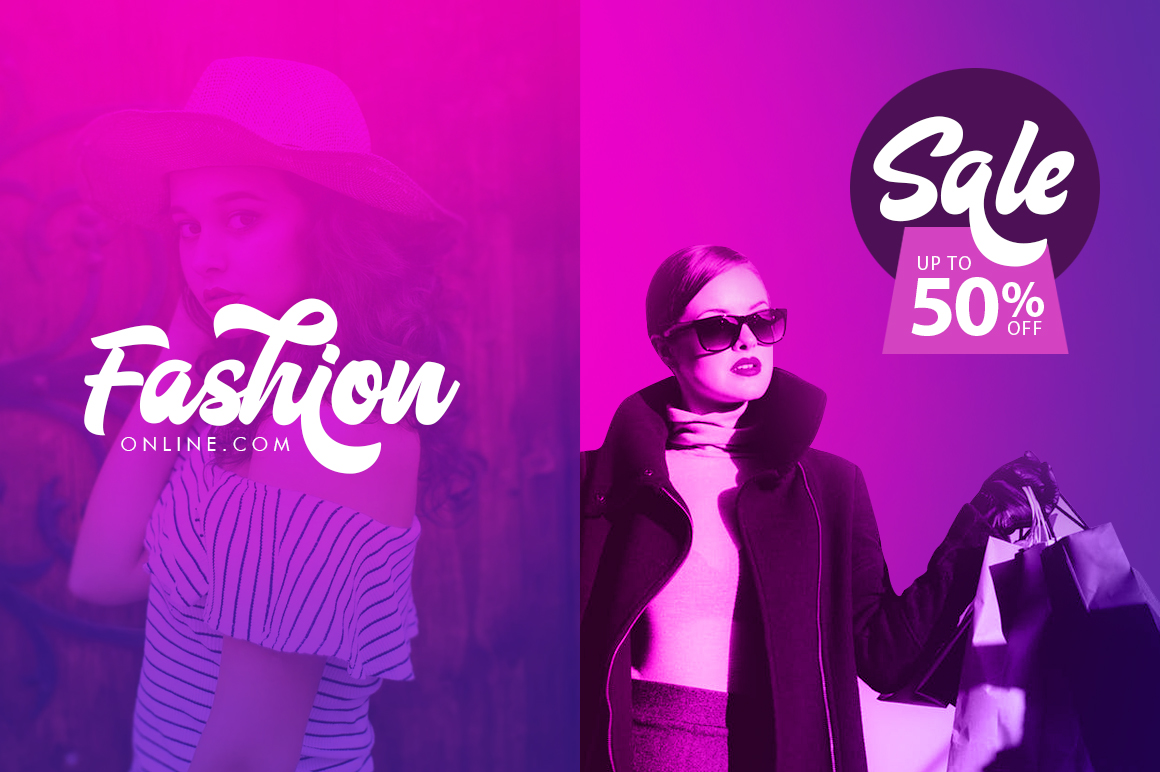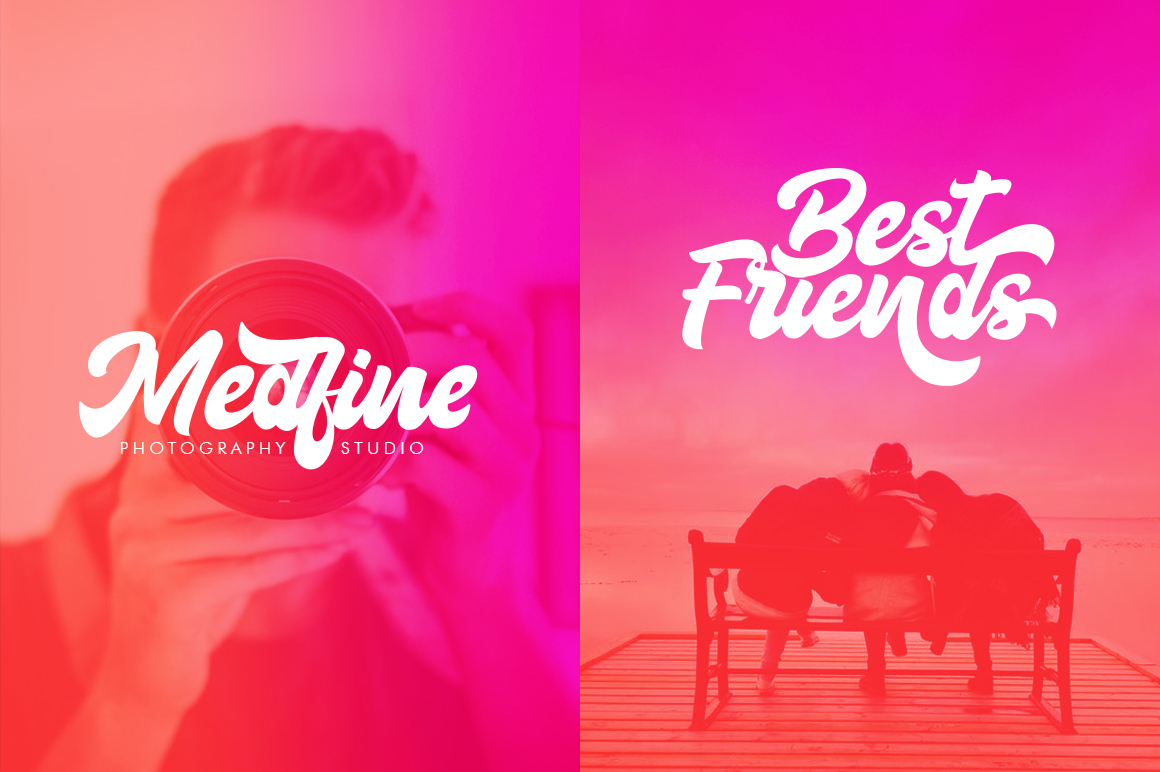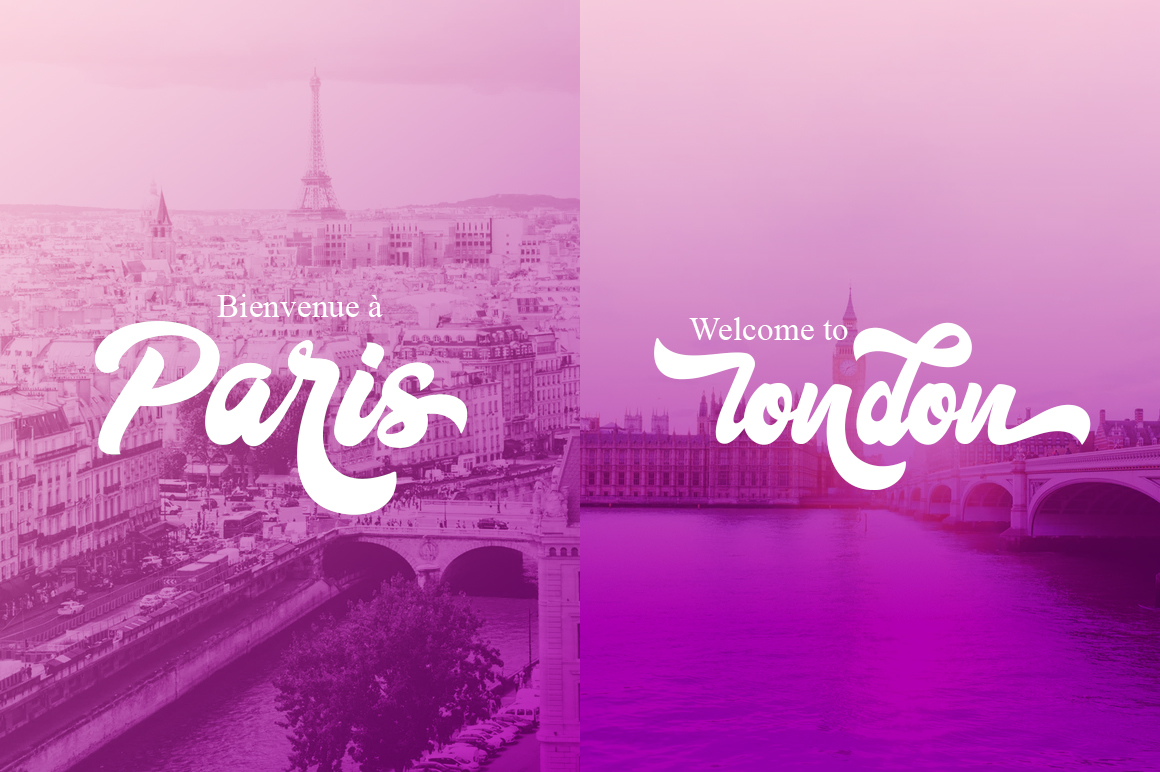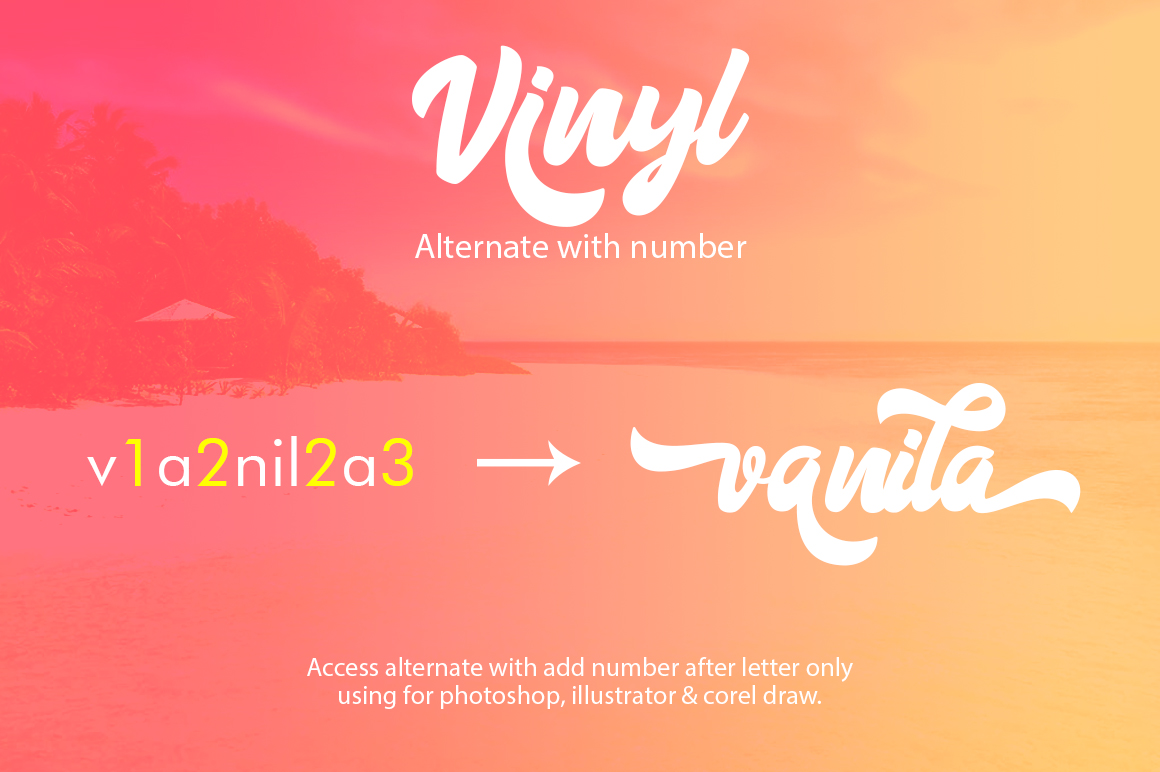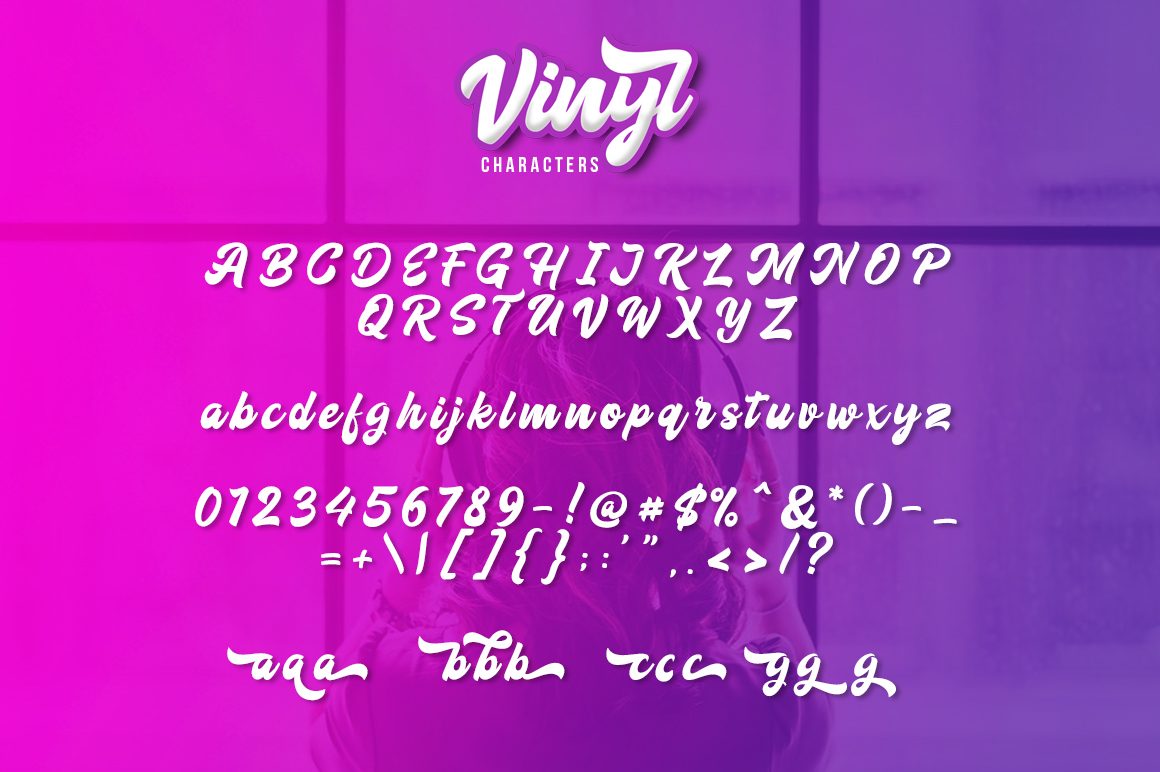
Vinyl Font
About Vinyl Font
Vinyl is a fun bold script font, full of fresh and modern style. On trend and refreshing, Vinyl is a striking font that can be used for displays that require attention.
Add Vinyl, a wonderful display font, to your font collection.